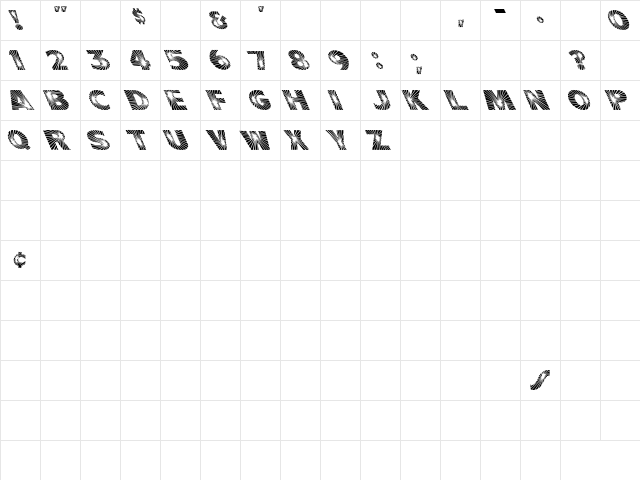
Starburst Extreme Lefties Regular
Design Context for Starburst Extreme Lefties Typeface
Starburst Extreme Lefties is a composed and adaptable typeface that performs quietly and consistently across a wide range of design contexts.